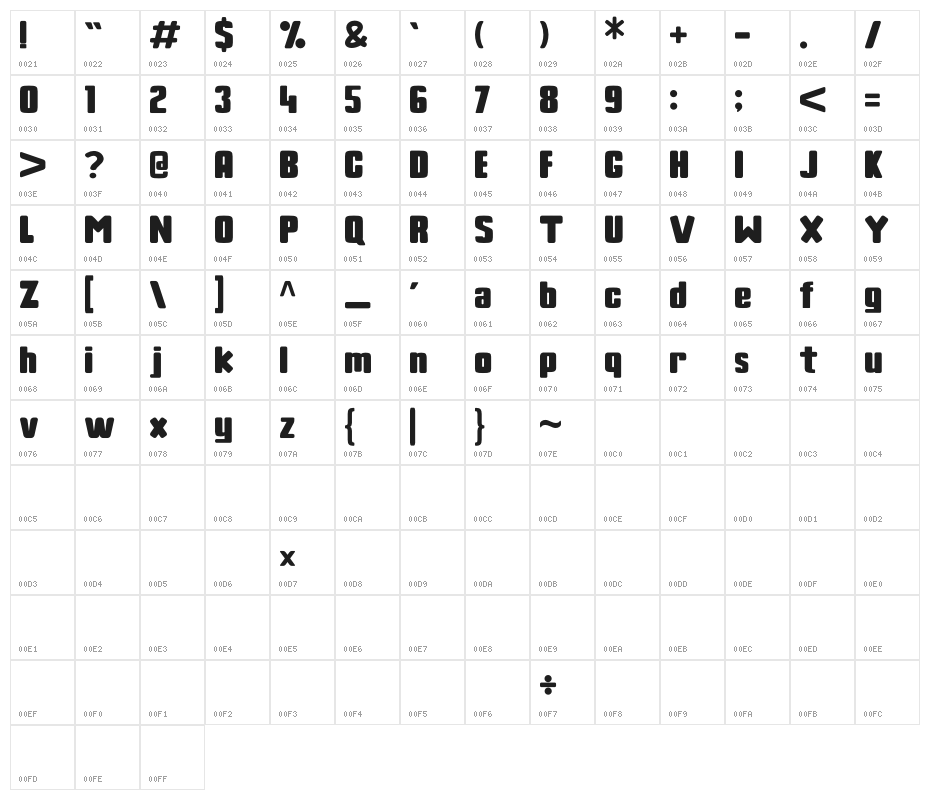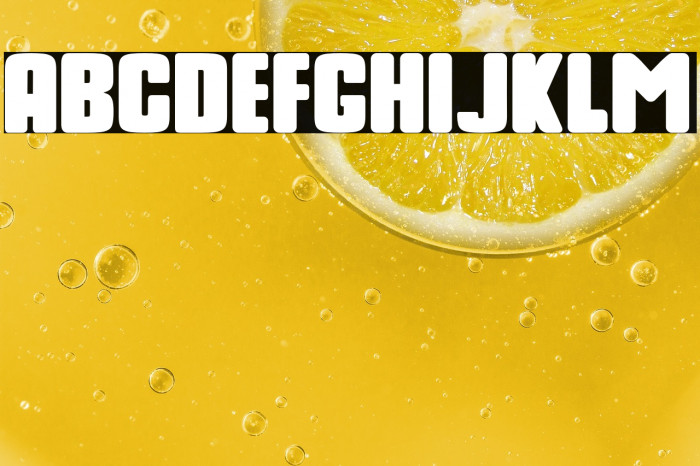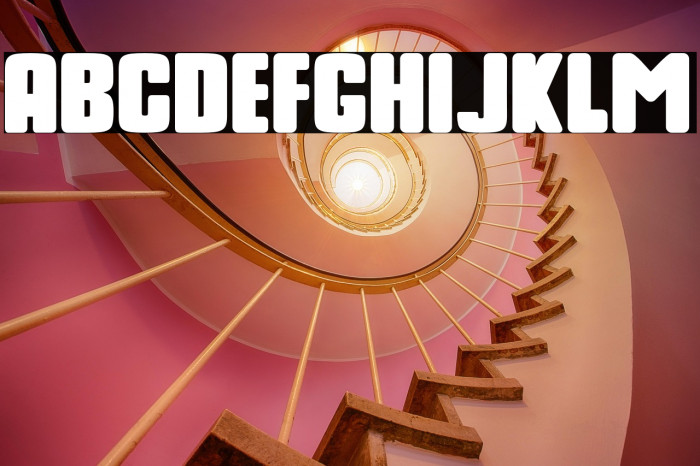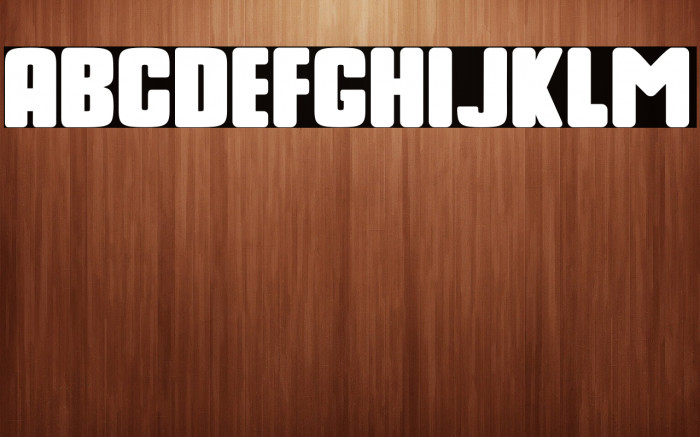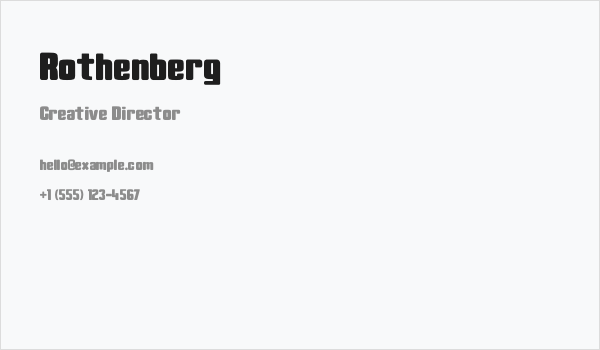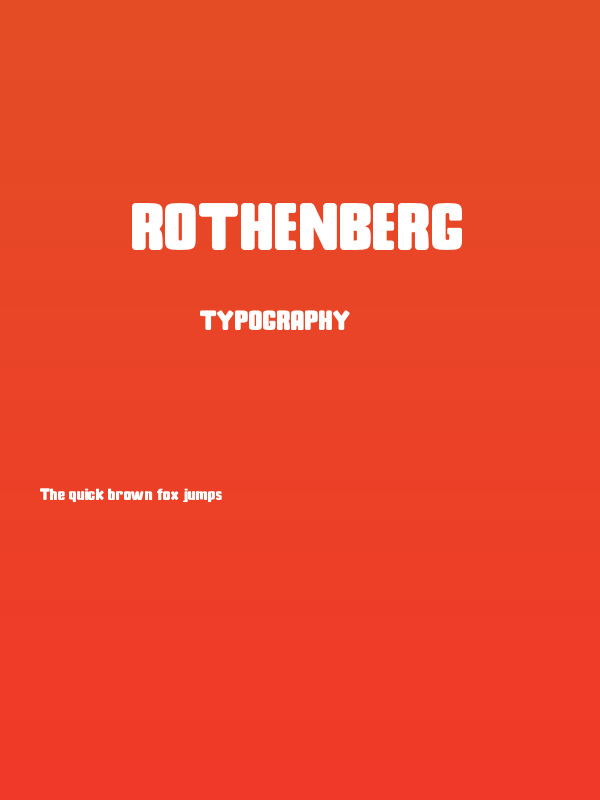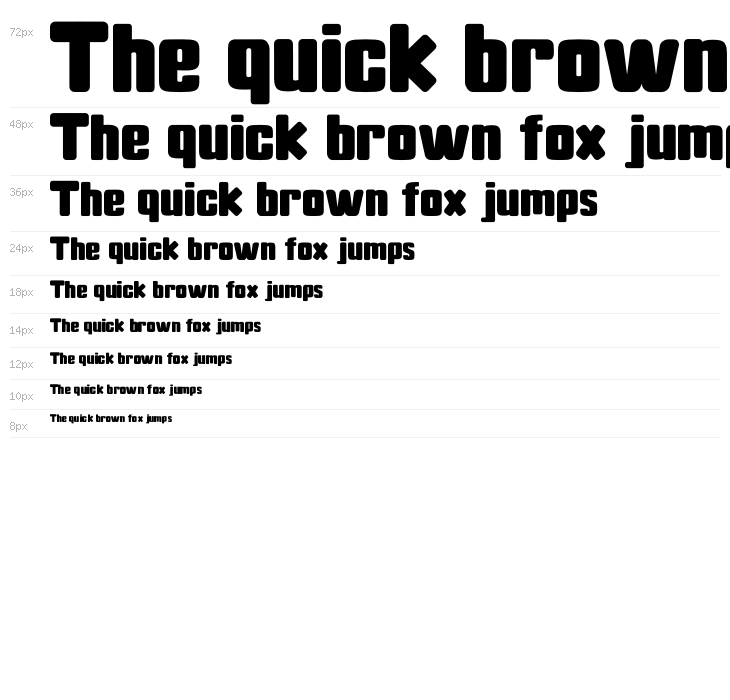
Rothenberg Font
Rothenberg Description
This font features bold, rounded characters with a strong, impactful presence. The uppercase and lowercase letters maintain a consistent thickness, creating a uniform appearance. The numbers and special characters follow the same design principles, ensuring a cohesive look across all elements. The rounded edges soften the boldness, making it approachable yet assertive. This style is reminiscent of vintage signage, offering a nostalgic feel while remaining modern and versatile.